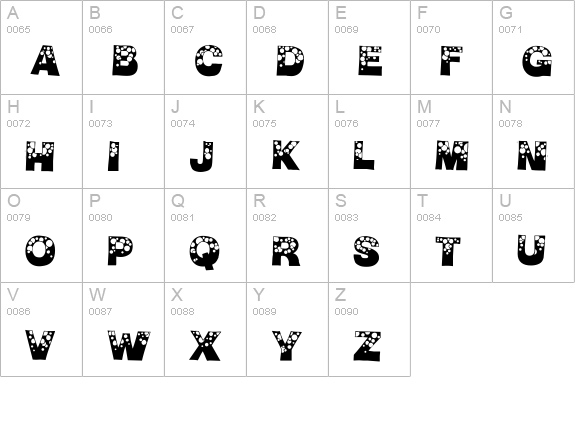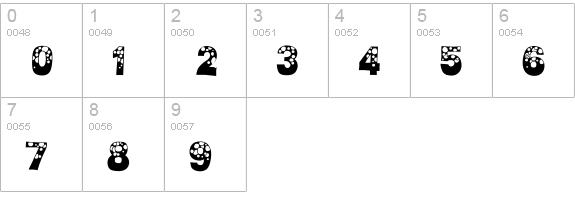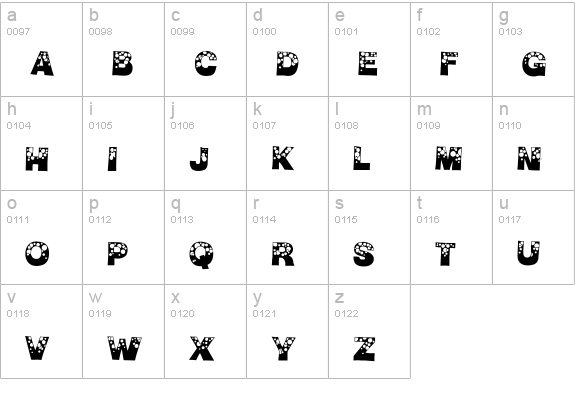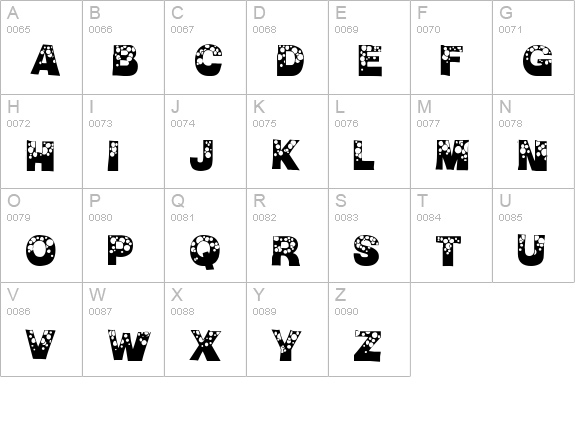
BubbleMan Font Details
BubbleMan font is a fun and playful typeface that brings a whimsical touch to any design project. With its rounded edges and bubbly appearance, this font exudes a sense of lightheartedness and cheerfulness. Perfect for a variety of uses, from children's books to party invitations, BubbleMan font will add a pop of personality to your creations. Best of all, BubbleMan font is completely free to download at FontsMarket.com. Whether you're a professional designer looking to add a touch of fun to your work or someone looking to spice up a personal project, BubbleMan font is the perfect choice. Don't miss out on this delightful font that is sure to bring a smile to anyone who sees it. Download BubbleMan font today and let your creativity bubble over!